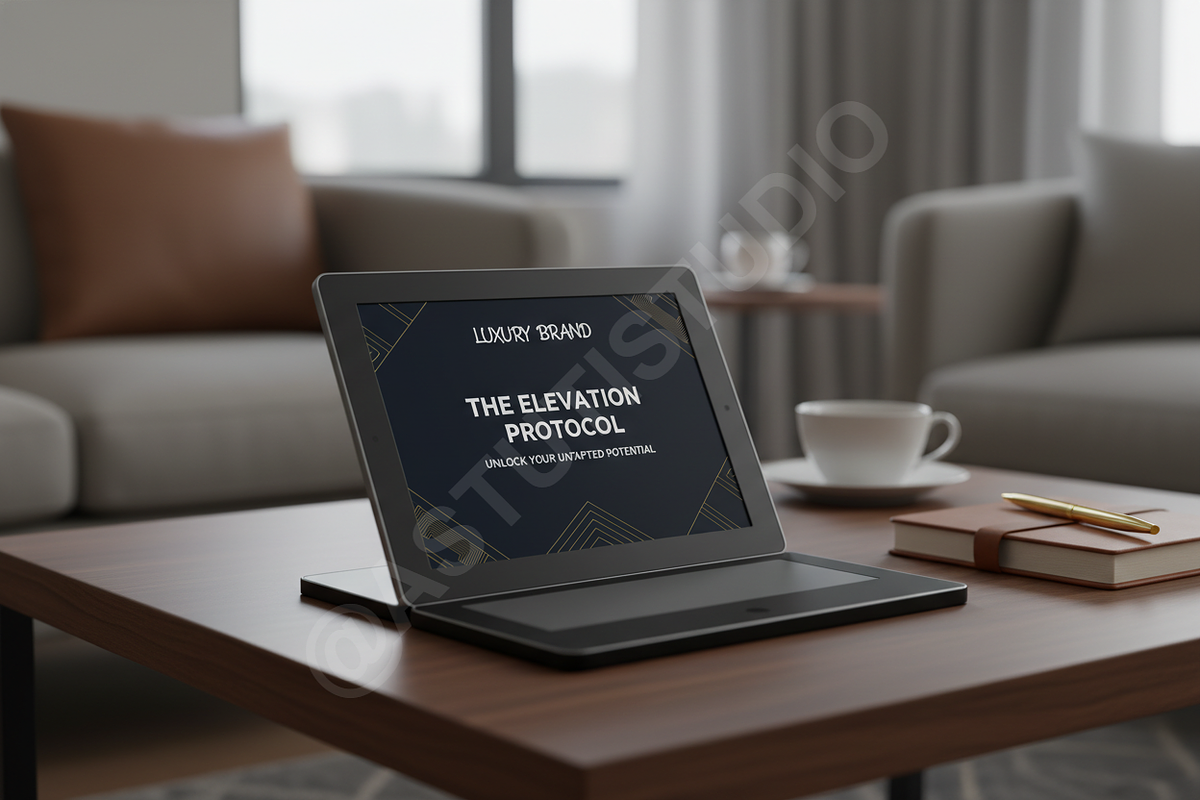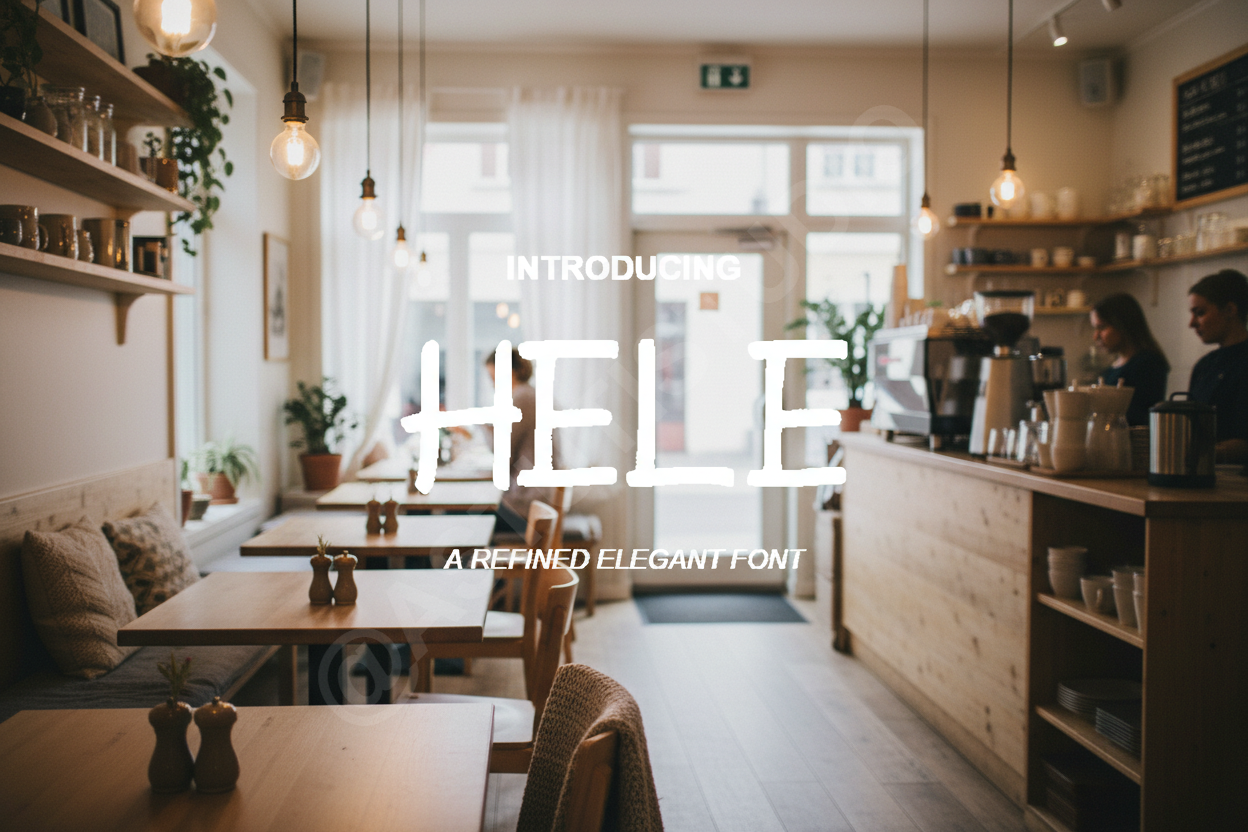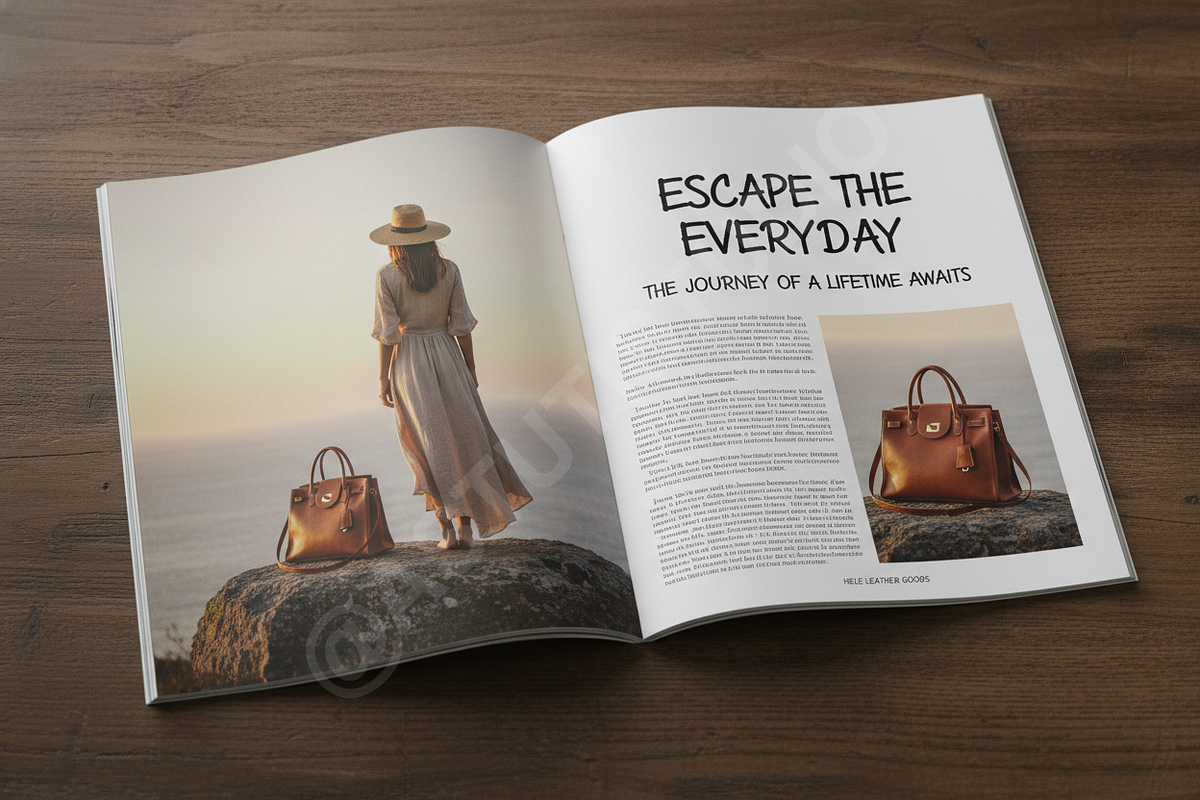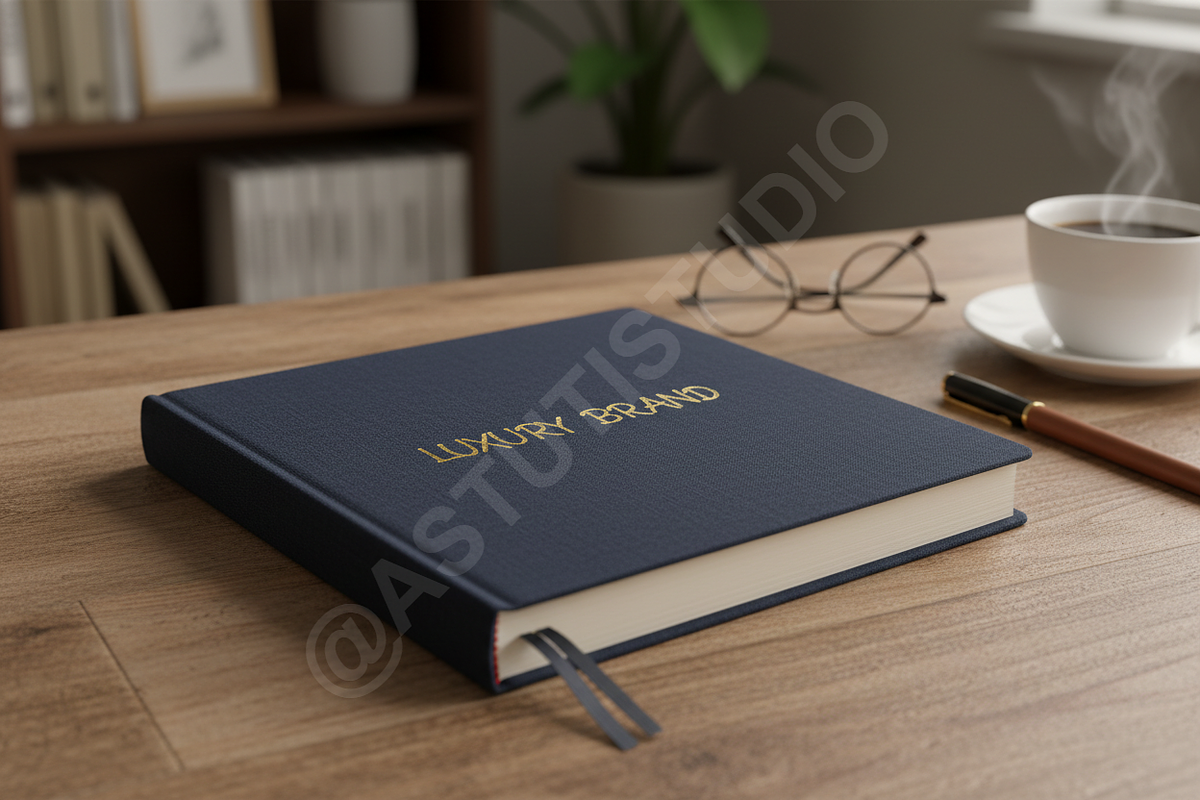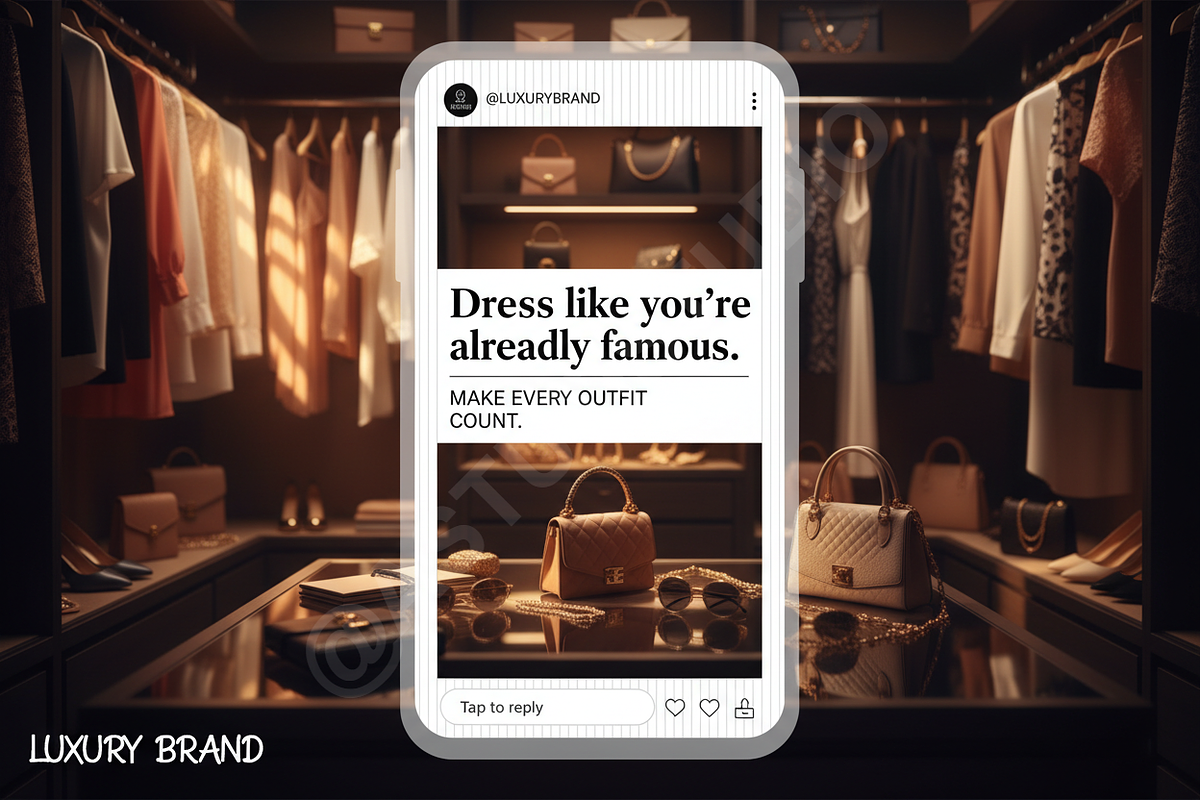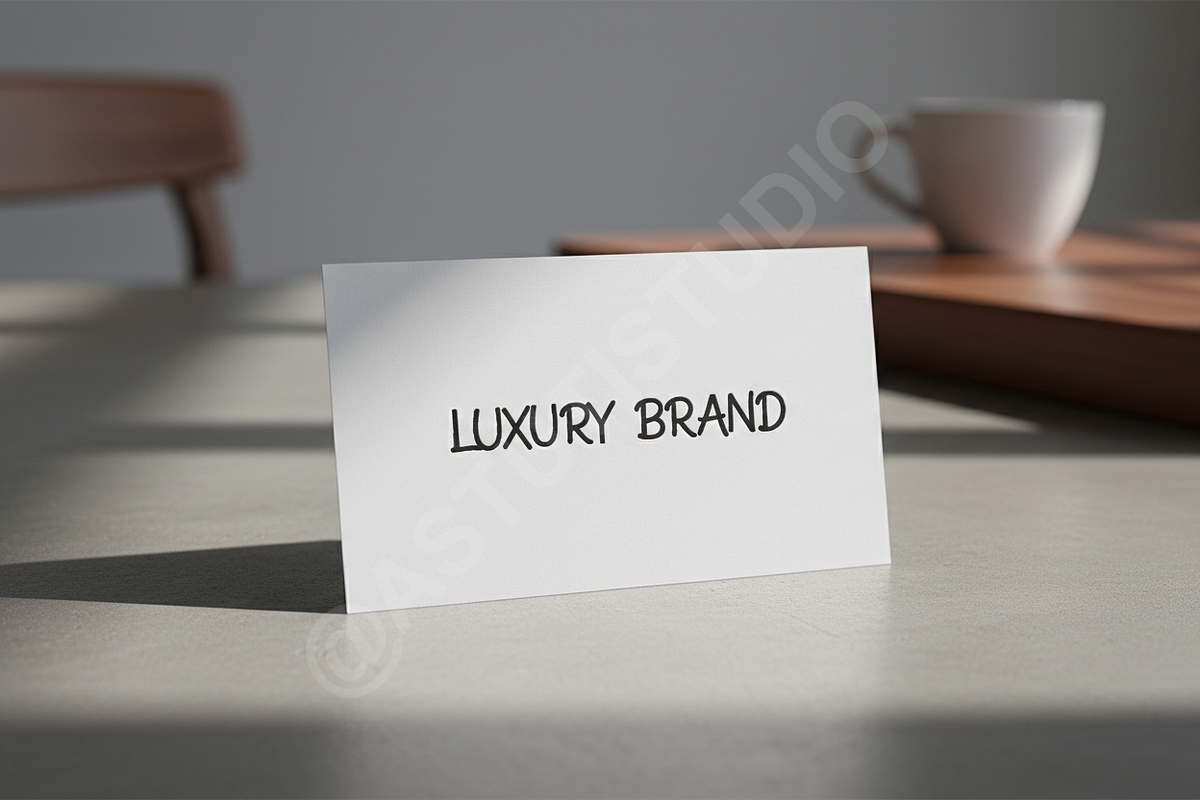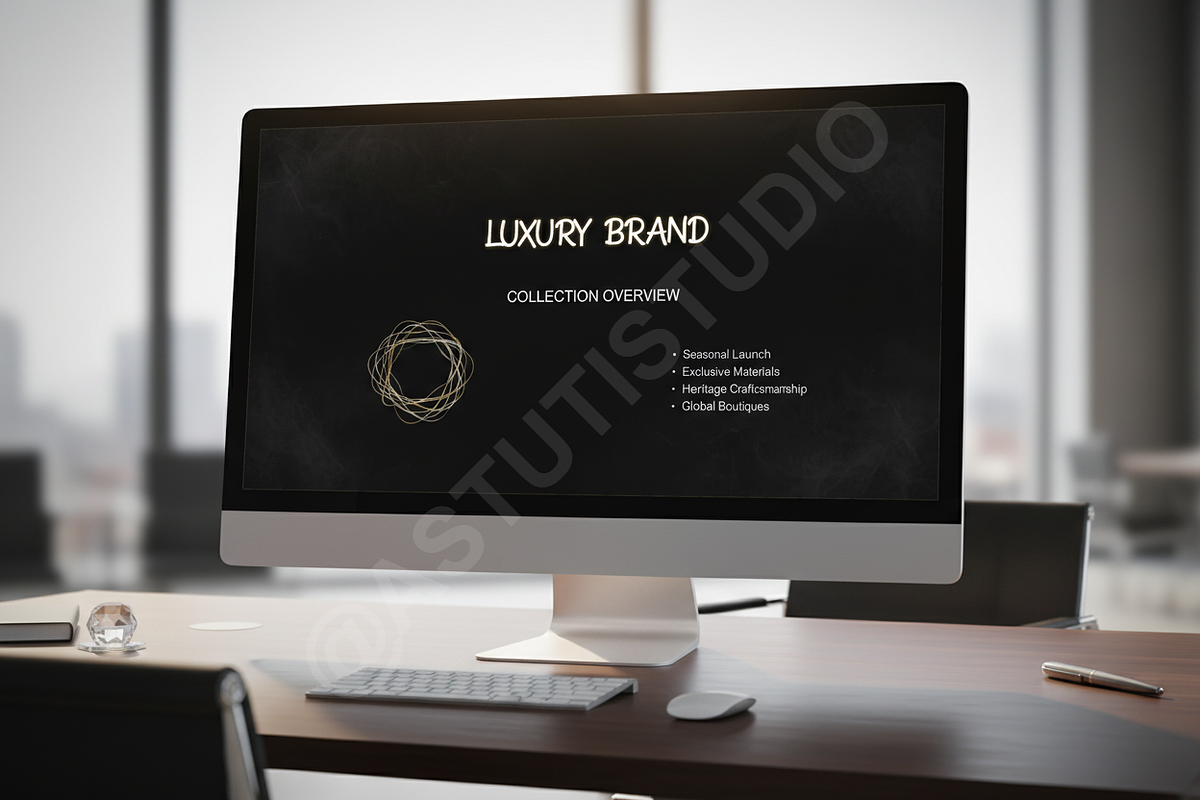
Hele | Modern Luxury Serif Typeface
INTRODUCTION Hele is a sophisticated serif typeface meticulously crafted for high-end aesthetics. Drawing inspiration from classic editorial typography, Hele blends timeless elegance with modern minimalist lines. It is the premier choice for designers looking to elevate luxury fashion branding, high-end editorial layouts, and premium social media content.
- Elegant high-contrast strokes for a refined look
- Extensive collection of unique ligatures and alternates
- Clean, legible proportions suitable for both headlines and body text
- Comprehensive multilingual support
- Precise kerning and professional character spacing
- Complete set of uppercase, lowercase, numbers, and punctuation